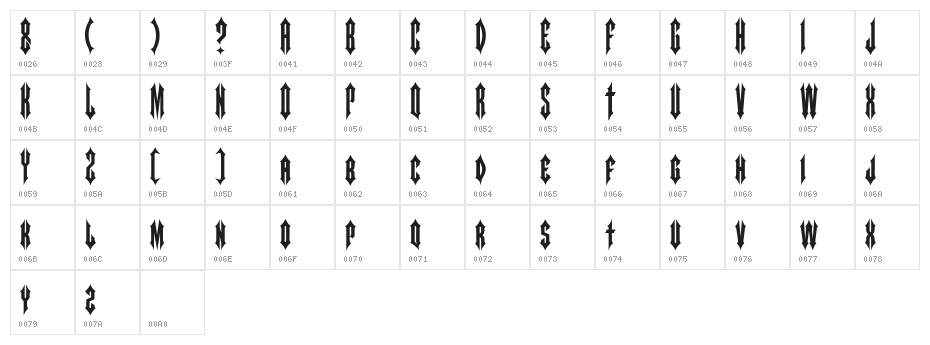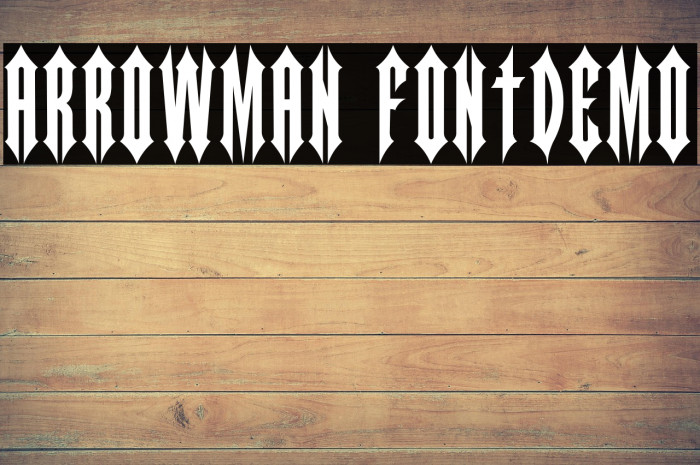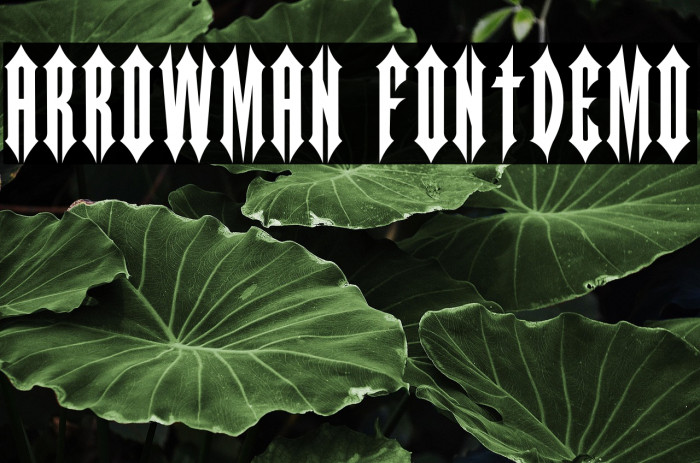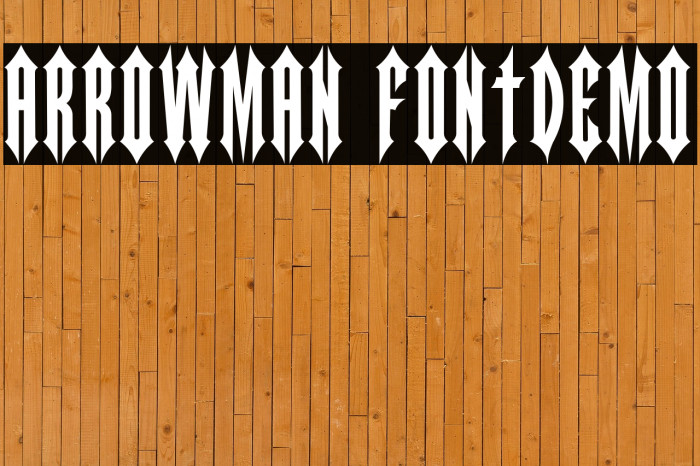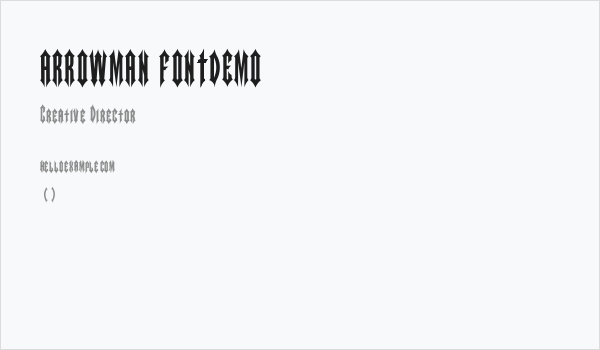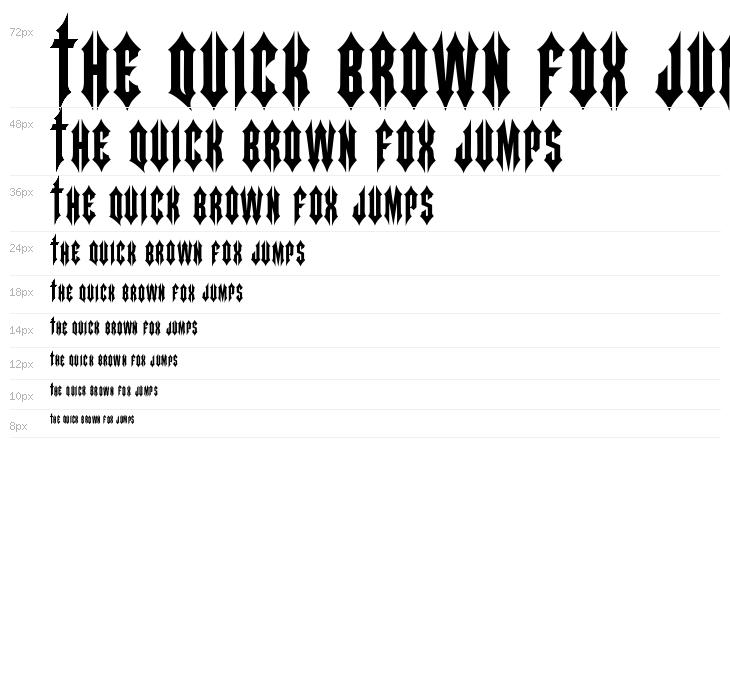
ARROWMAN FONTDEMO Font
ARROWMAN FONTDEMO Description
This font features a bold and striking design with sharp, angular lines and a distinct Gothic influence. The characters are tall and narrow, with pointed serifs that give them a dramatic and imposing appearance. The uppercase and lowercase letters maintain a consistent style, emphasizing verticality and symmetry. The numbers and special characters are designed to match the overall aesthetic, ensuring a cohesive look across all elements. This font's unique style makes it ideal for projects that require a strong visual impact and a touch of medieval or fantasy flair.
| Use Case | Logos, Headlines |
| Proposed Projects | Ideal for fantasy book covers, medieval-themed events, video game titles, and branding that requires a dramatic flair. |